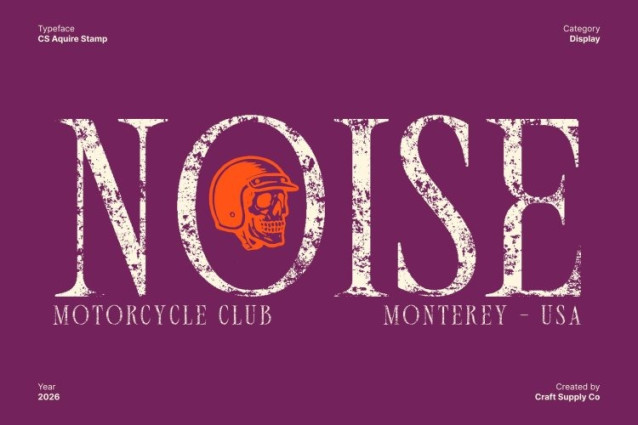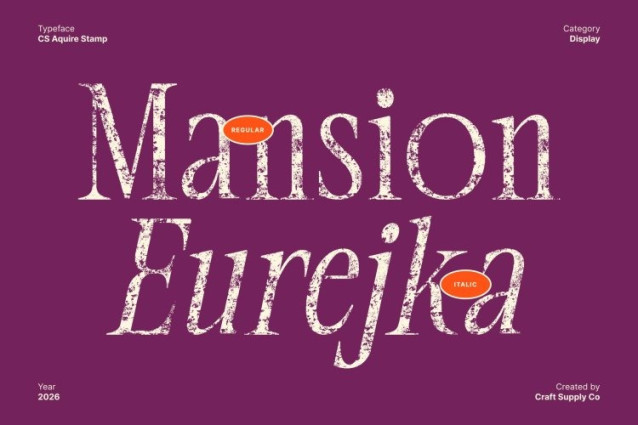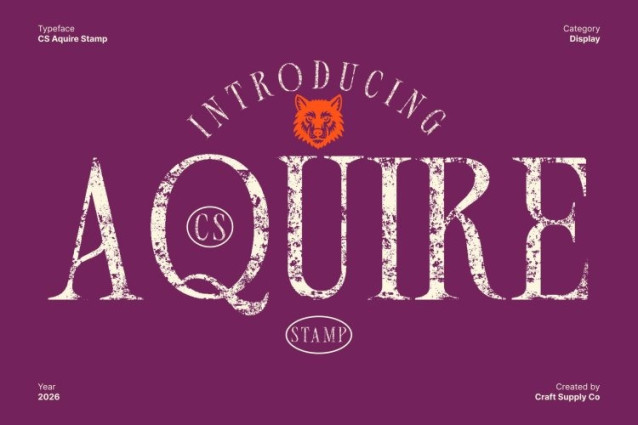
CS Aquire Stamp Font
CS Aquire Stamp Font This is a modern serif font defined by its long, condensed serifs and clean structural foundation. Built on minimalist principles and refined proportions, it presents a sleek, contemporary silhouette while preserving the elegance and authority of classic serif typography. Its tall, narrow letterforms create a sophisticated and confident visual presence.
Condensed Design for Efficient and Stylish Layouts
The condensed structure of this font makes it ideal for space-conscious designs that require both clarity and style. Its elongated forms perform beautifully in editorial layouts, magazine headlines, and luxury branding, allowing designers to achieve strong visual impact without overwhelming the composition. This efficiency enhances usability across both print and digital formats.
Vintage Stamp Texture with Artistic Depth
The stamp effect introduces a layer of vintage character that enriches the font’s clean design. Subtle texture, distressed details, and aged imperfections give the typeface an old-print, handcrafted feel. This artistic texture adds warmth and authenticity, creating a striking contrast between modern precision and classic, timeworn charm.
Perfect for High-End Branding and Editorial Design
Designed for luxury branding, fashion publications, and refined editorial projects, this font delivers a timeless yet distinctive aesthetic. Its blend of condensed elegance and vintage stamp texture makes it ideal for upscale logos, premium packaging, and sophisticated typographic compositions perfect for designs that seek precision with character and lasting visual appeal.